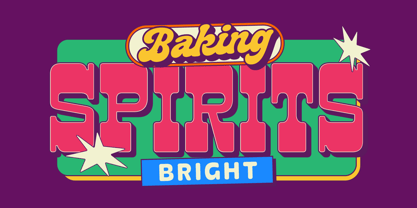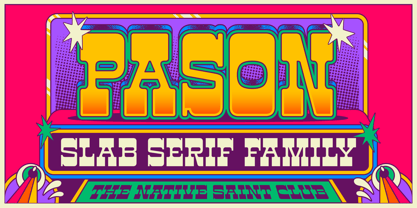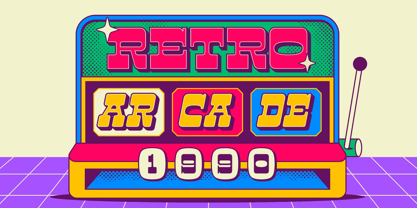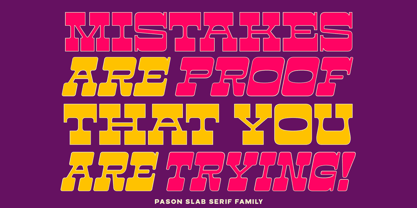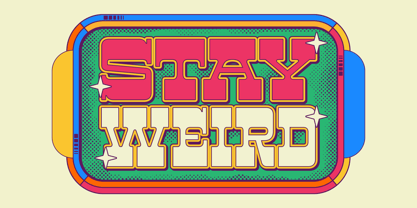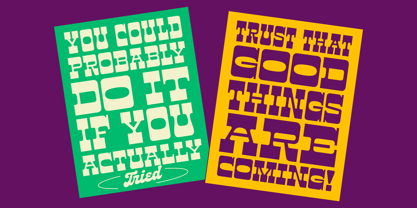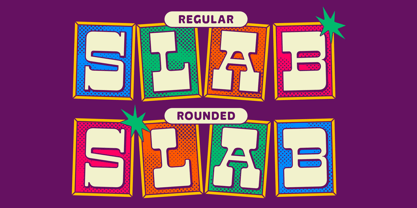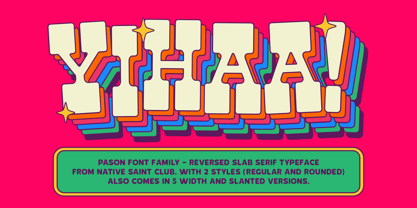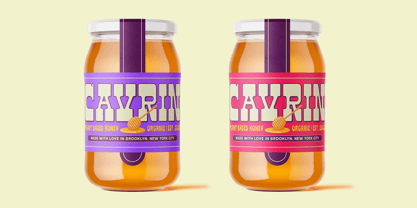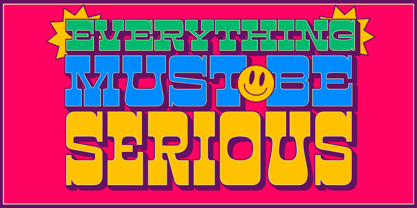
The Pason Font Family was designed by Bagas Ferdiansah, Septianto Nugroho and published by The Native Saint Club. Pason contains 20 styles and family package options.
Pason, our newest slab serif font, bringing a vintage feel but designed to convey a pop and modern style. Comes in two different styles: Regular and Rounded. Also has 5 widths: Condensed, Semi Condensed, Medium, Semi Expanded, Expanded. Which is suitable for various design needs! Perfect for branding, packaging, posters, headlines and any creative design.
Pason